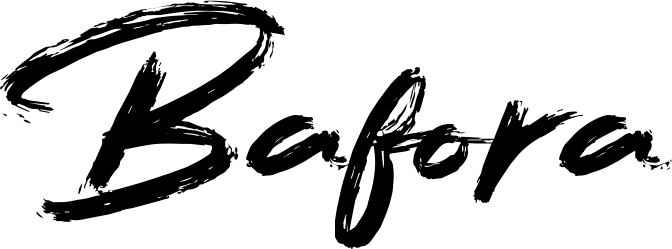
Bafora Font
No one can underrate the playful and friendly appearance of the script . The paintbrush attempts to use the utmost ability to reveal its hidden beauty to you with the artistic curve dancing. Although the Bafora font doesn’t contain numbers and punctuation marks it leaves no stone unturned in highlighting your design such as invitations, quotes, cards, T-shirts, posters, and other creative designs.